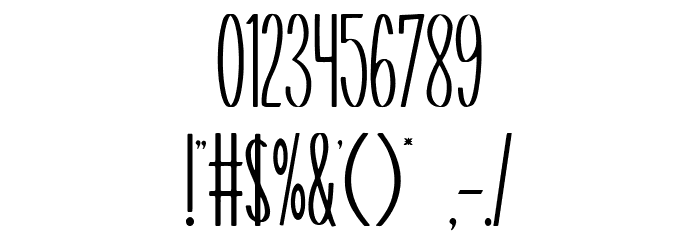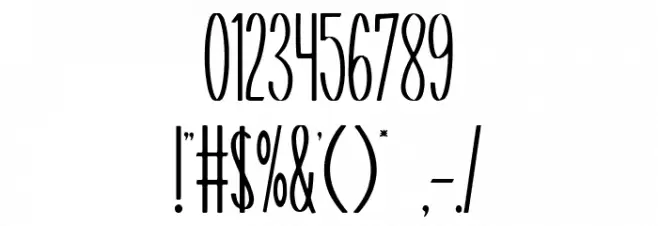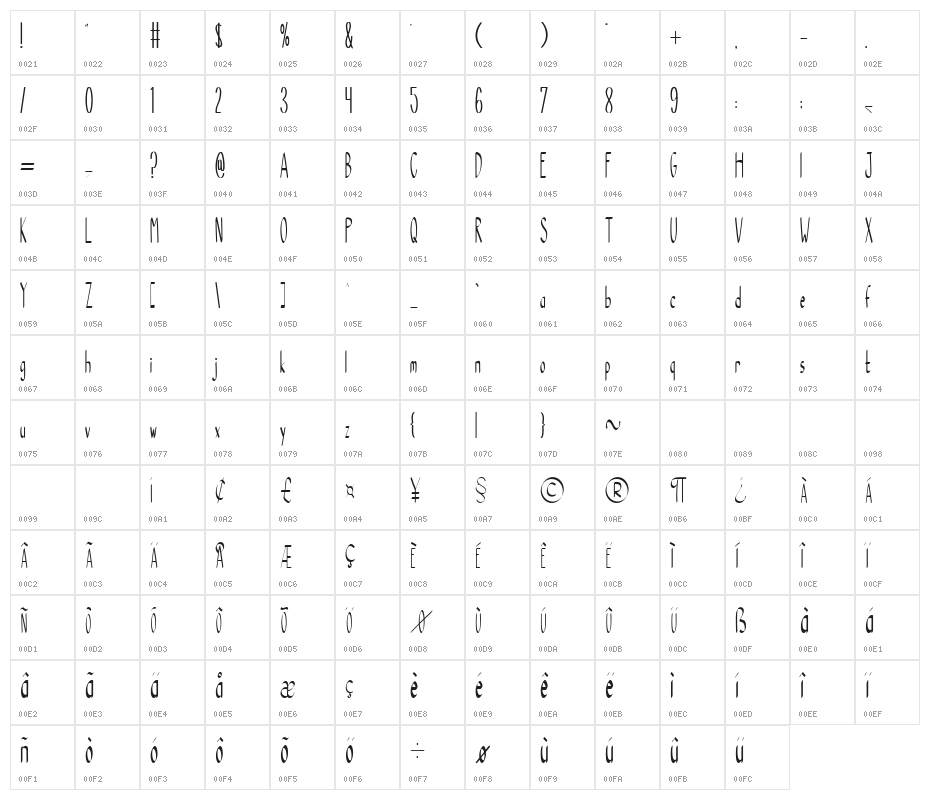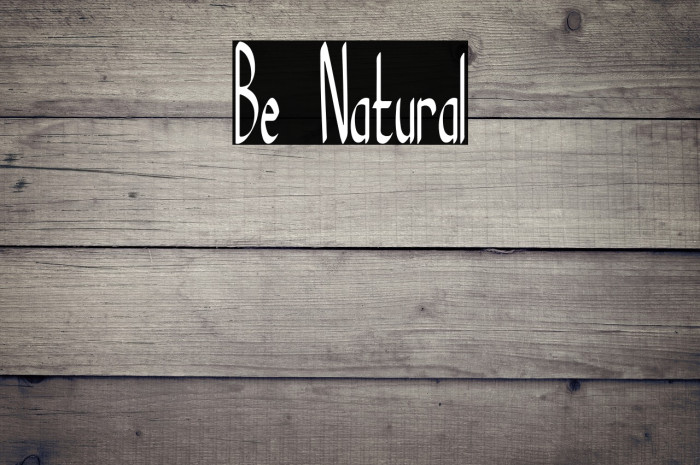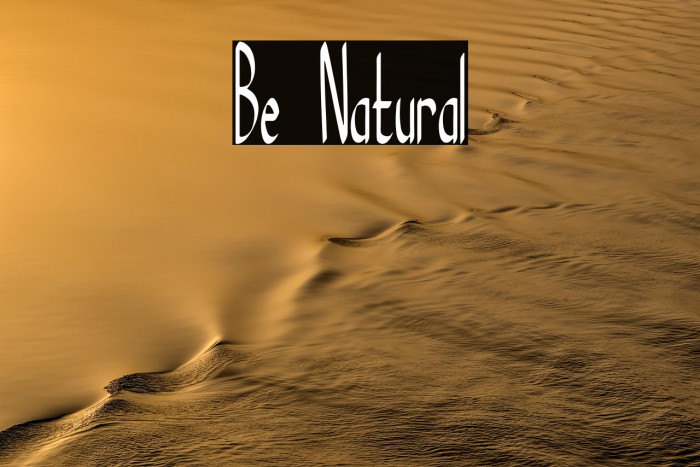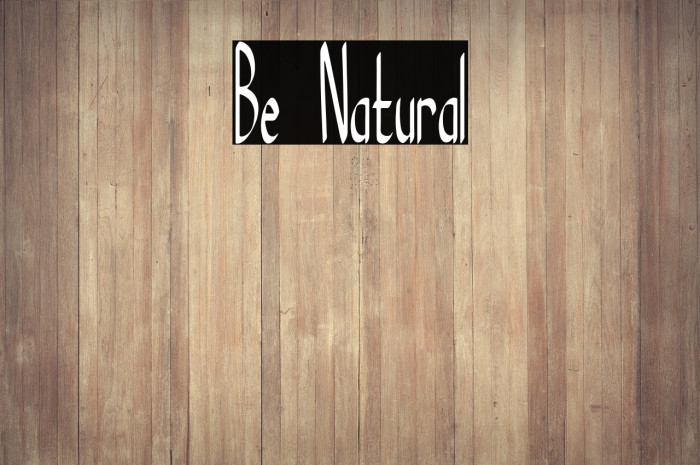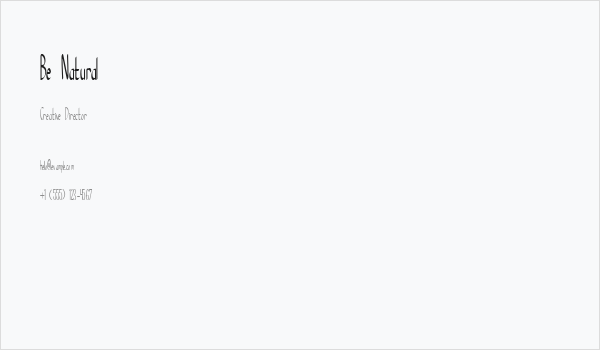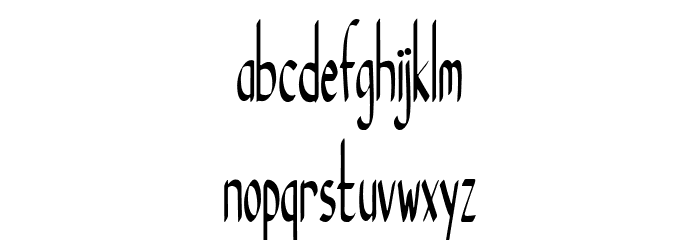
Be Natural Font
Be Natural Description
This font features a playful and organic design, characterized by its tall, narrow letterforms and slightly irregular strokes that give it a hand-drawn appearance. The uppercase letters are particularly elongated, creating a sense of height and elegance, while the lowercase letters maintain a consistent style that complements the overall look. The numerals and special characters follow the same aesthetic, ensuring a cohesive appearance across all text. This font's unique style makes it stand out, offering a whimsical yet sophisticated vibe that can add personality to any project.